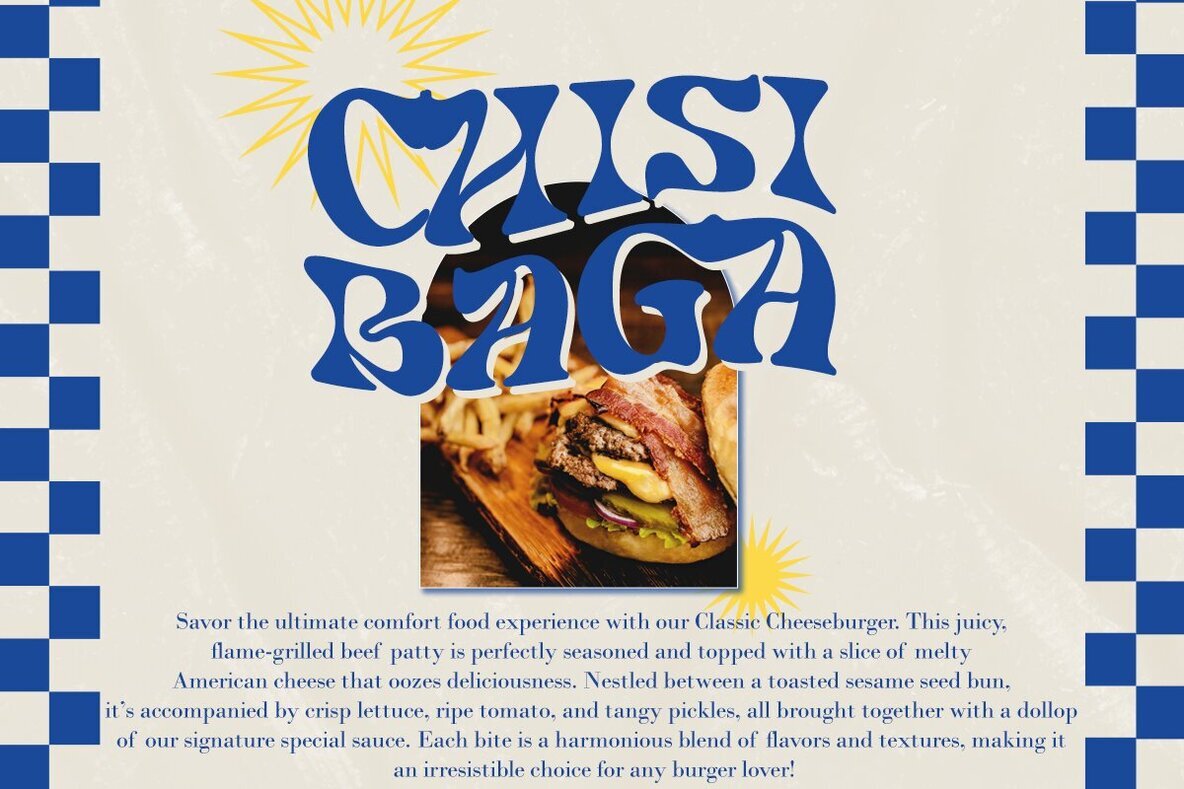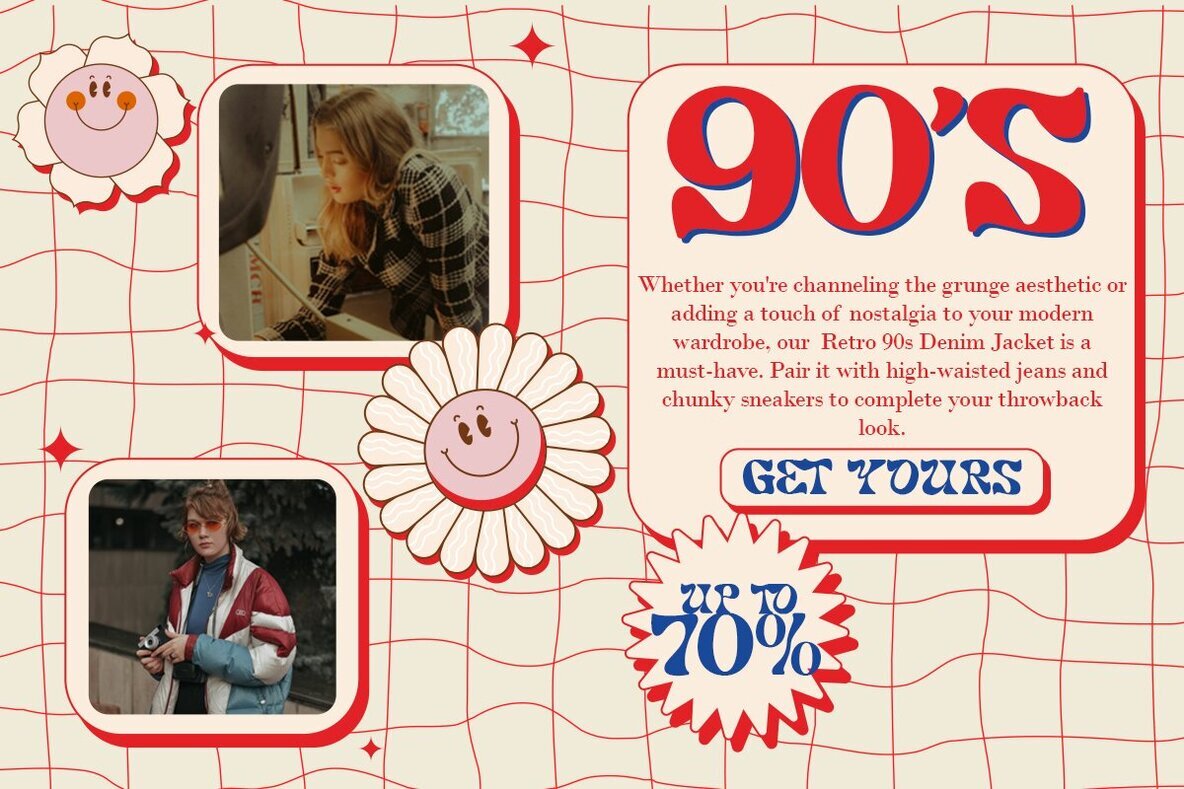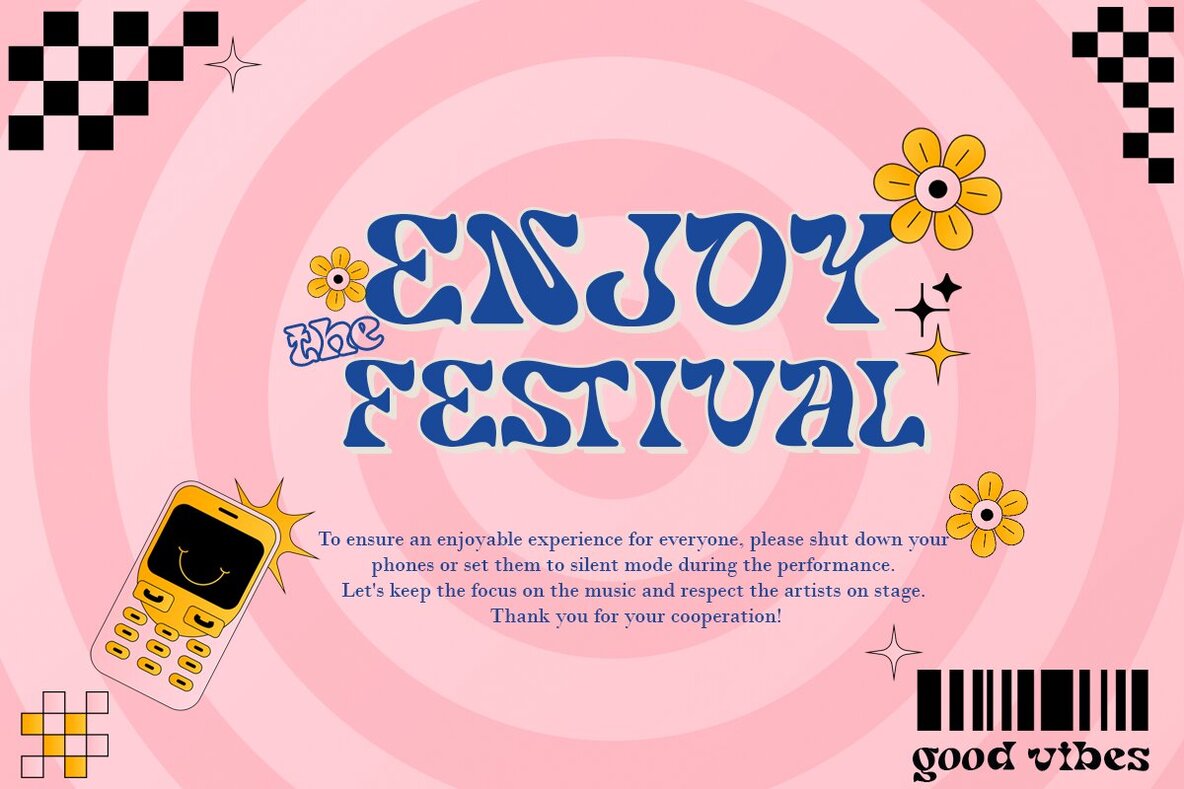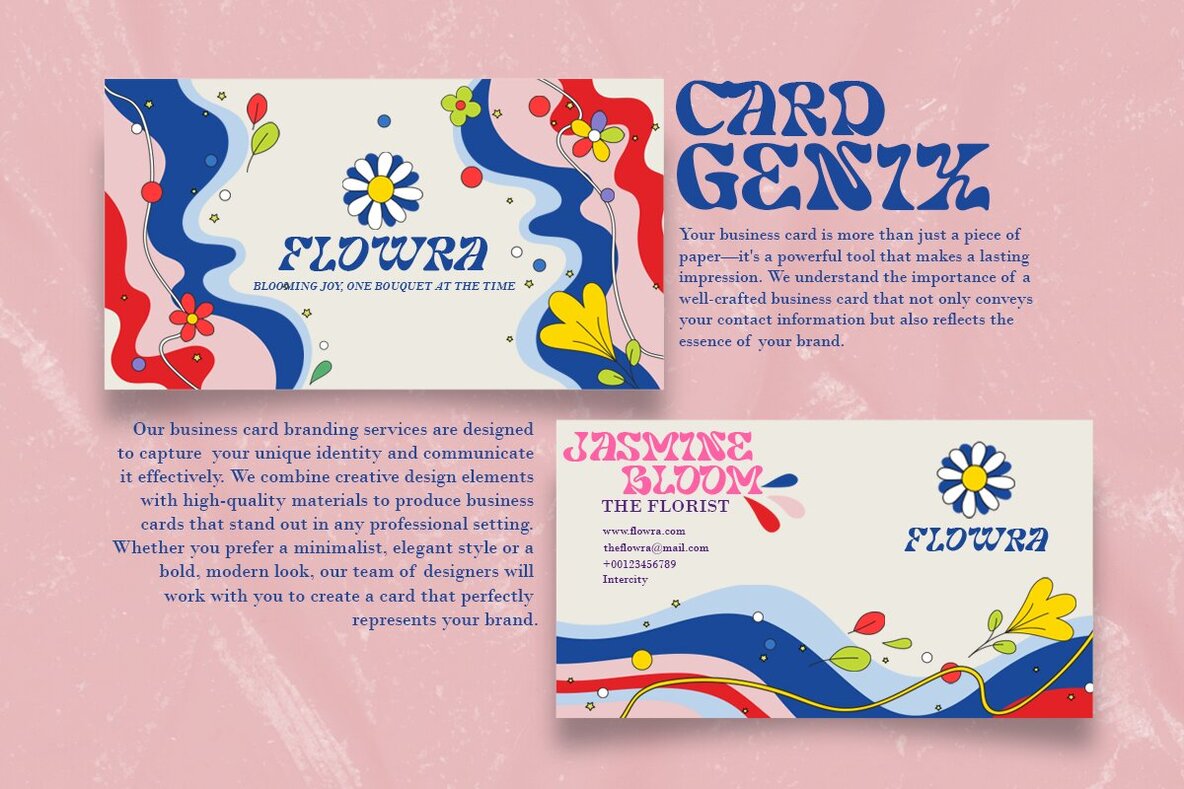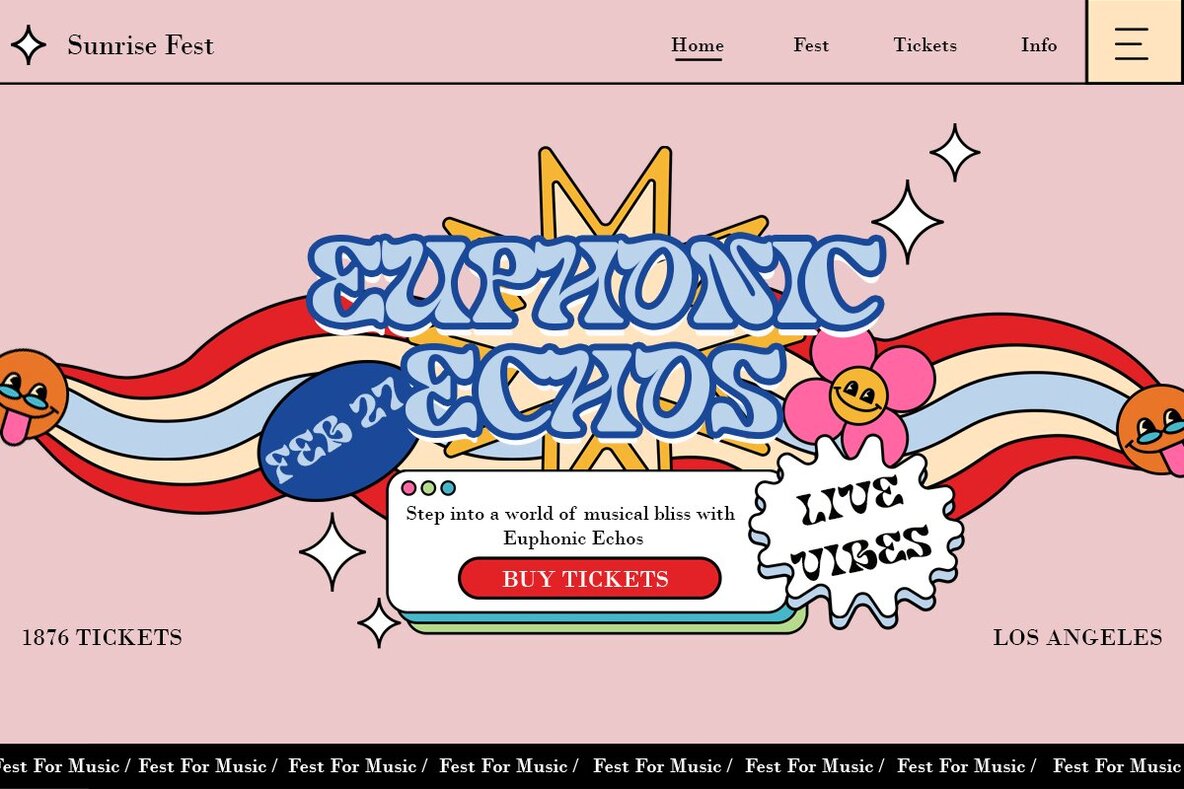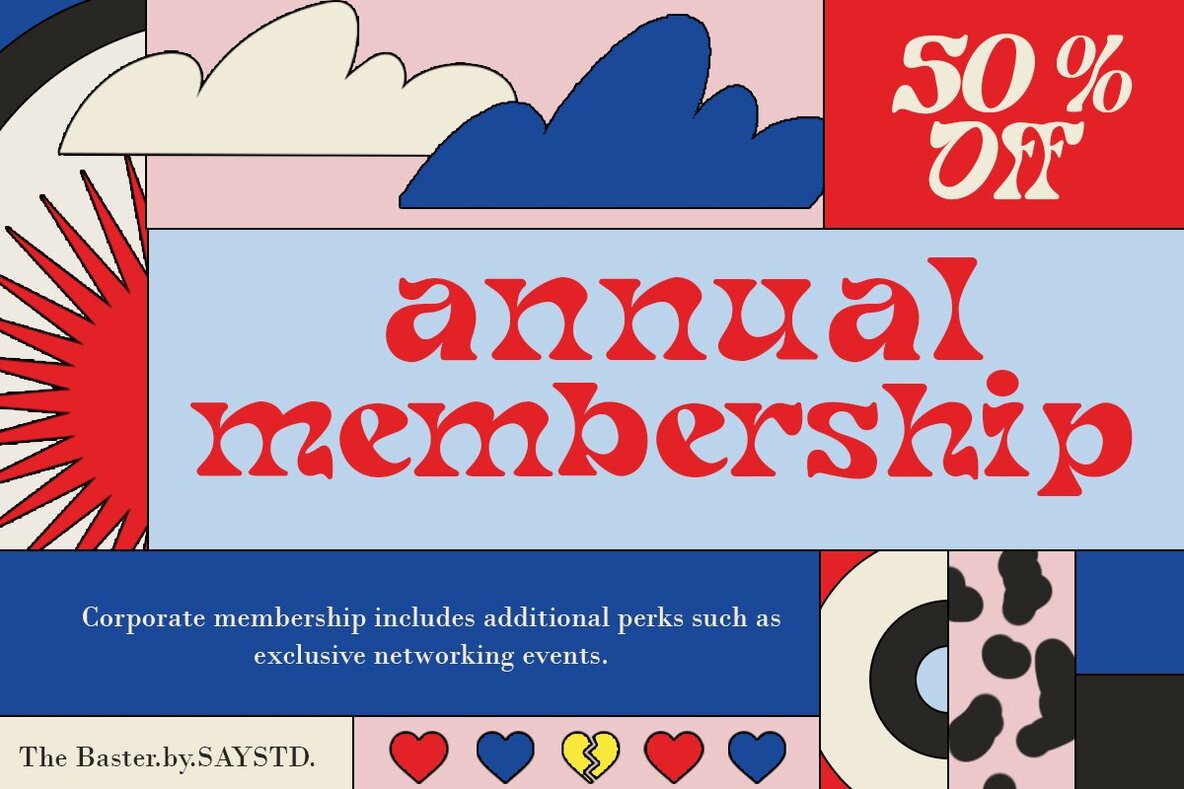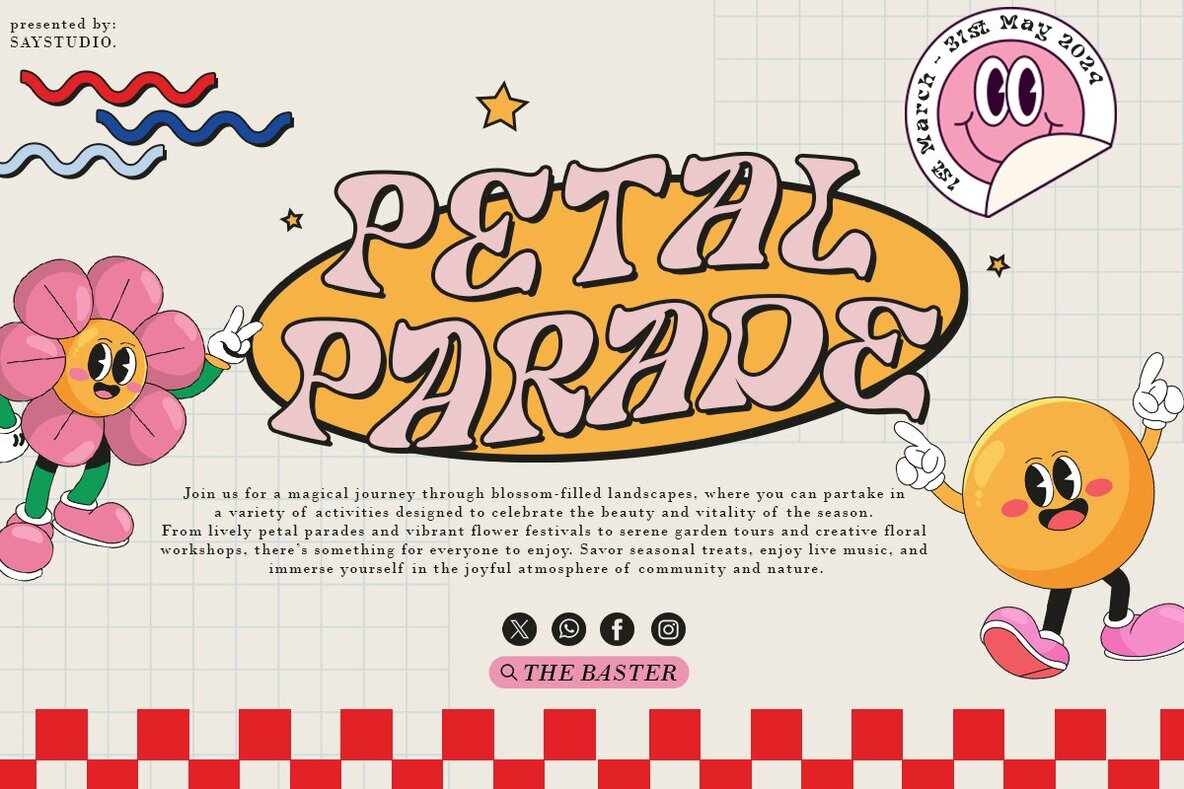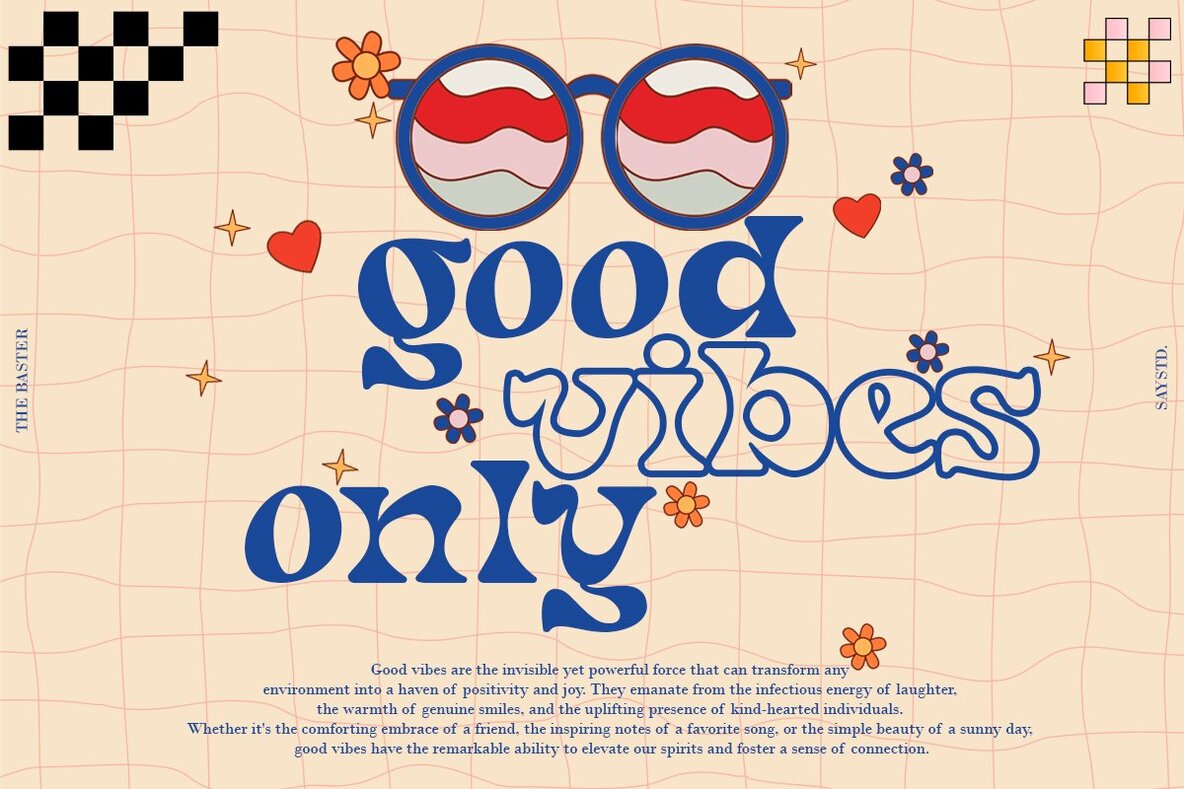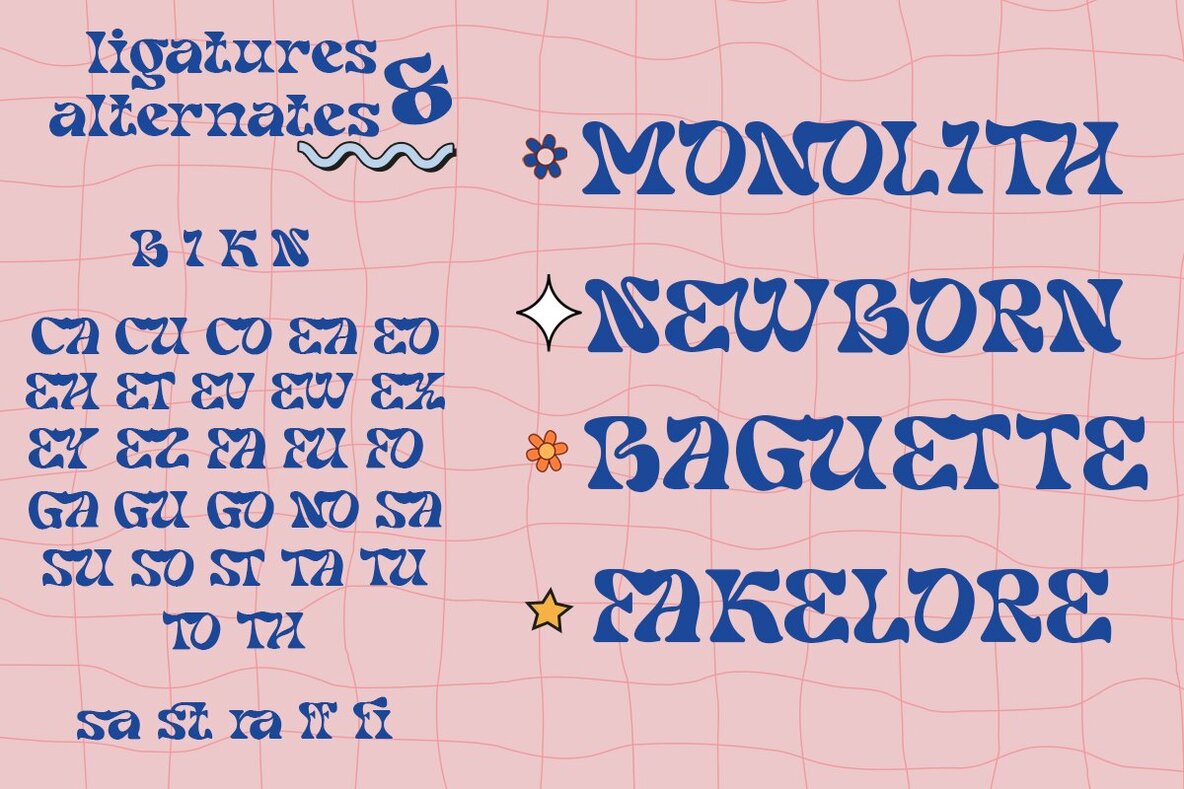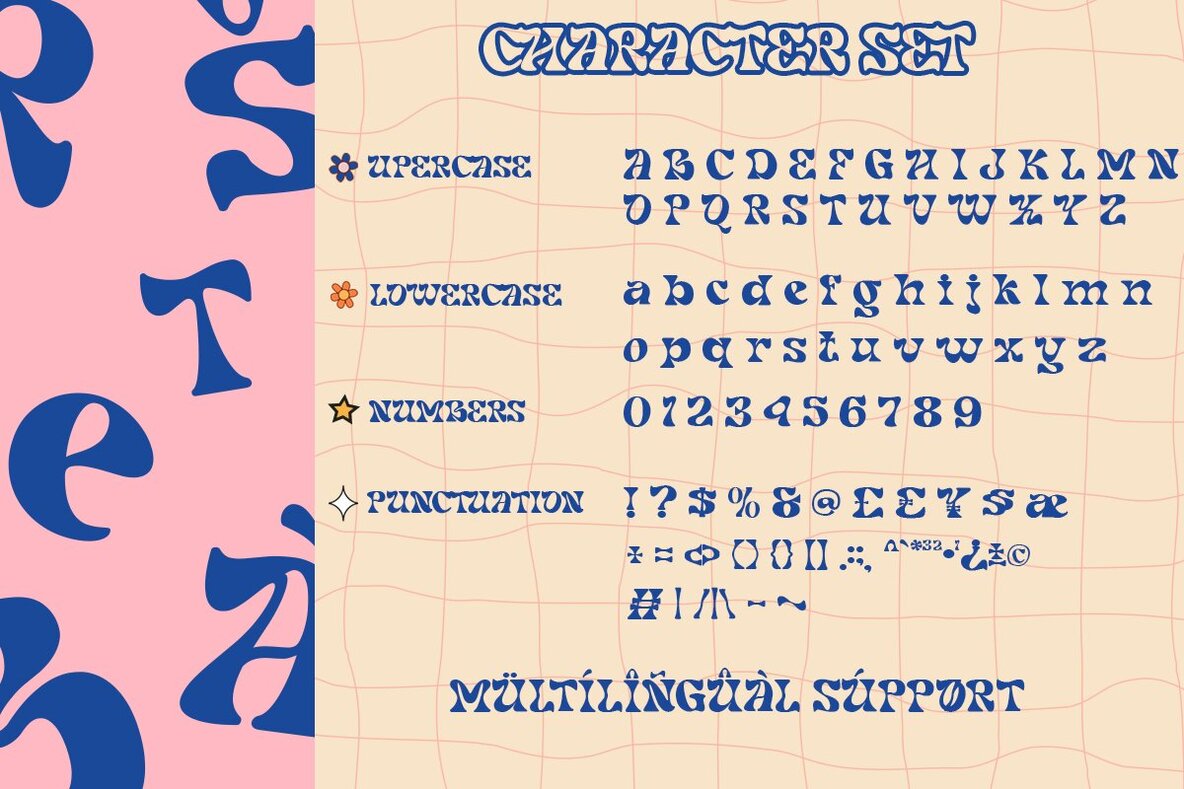
The Baster Font
The Baster Display is a contemporary font infused with psychedelic retro flair, featuring mesmerizing swirls and curves that capture the essence of the psychedelic revolution. This font offers an authentic touch of nostalgia, making it a perfect choice for projects that aim to embody retro style. Available in both regular and italic styles, The Baster Display provides versatility for a wide range of design needs.
Ideal for logo designs, badges, web layouts, headers, and packaging, The Baster Display enhances any project with its unique, eye-catching aesthetic. Its distinct design ensures that your work stands out with a bold, vintage vibe, making it suitable for any designer looking to add a touch of the 60s and 70s to their creative portfolio.